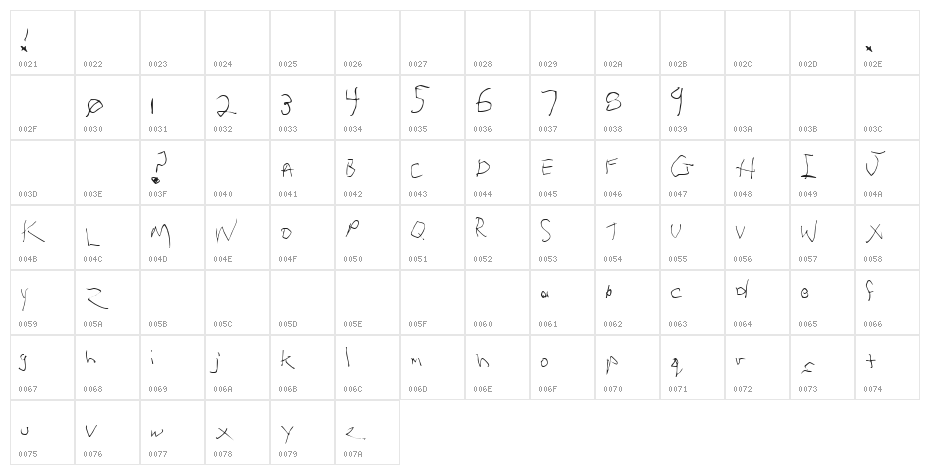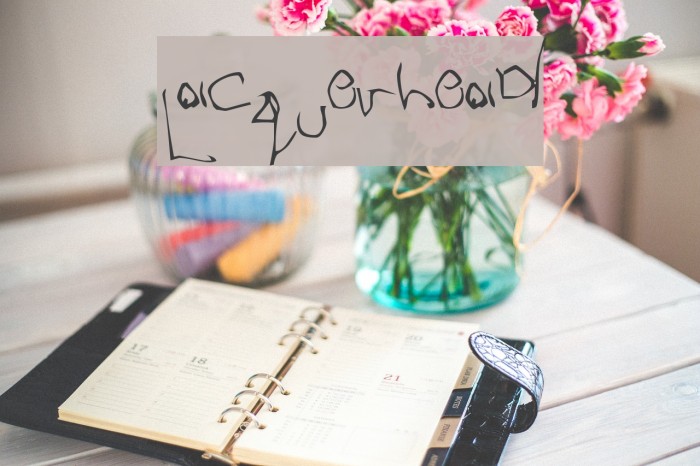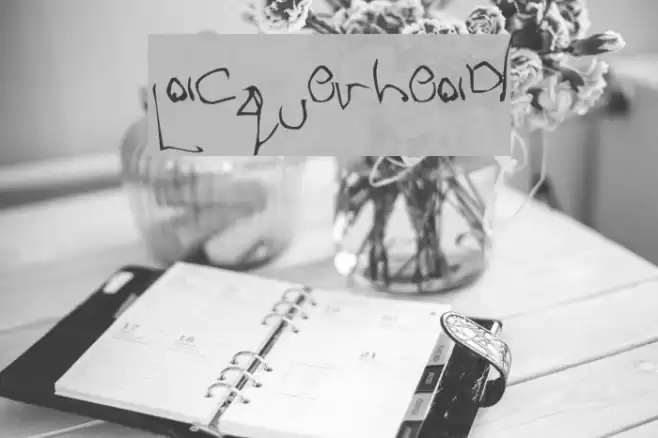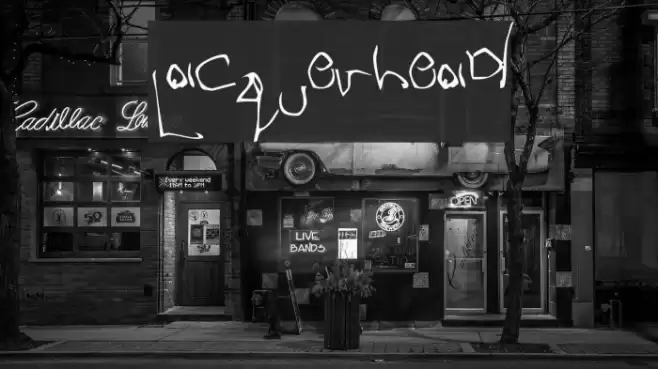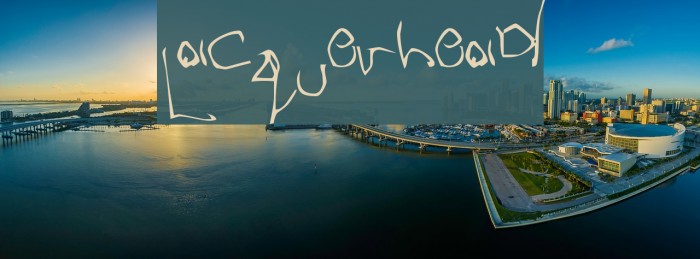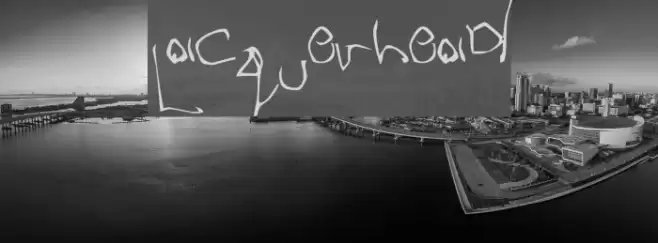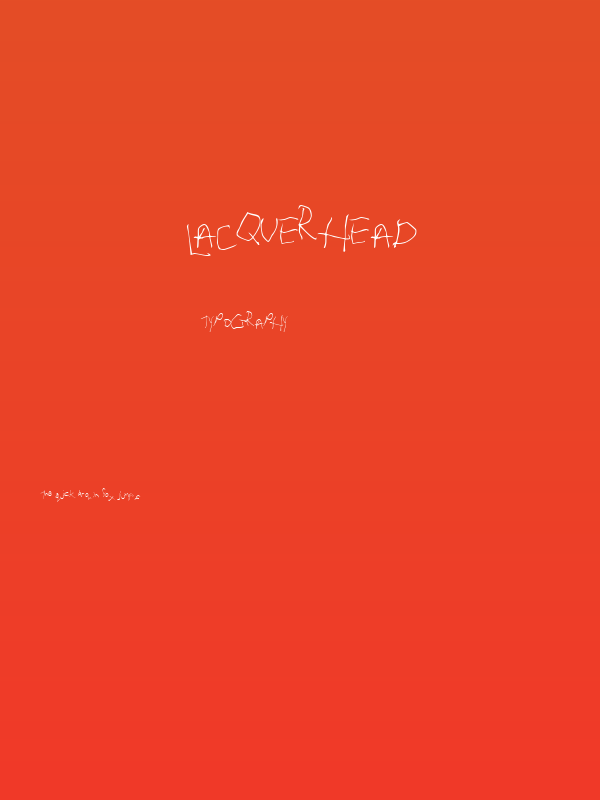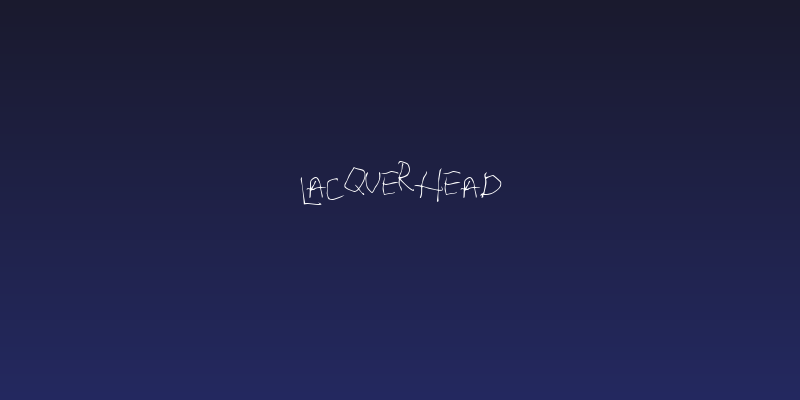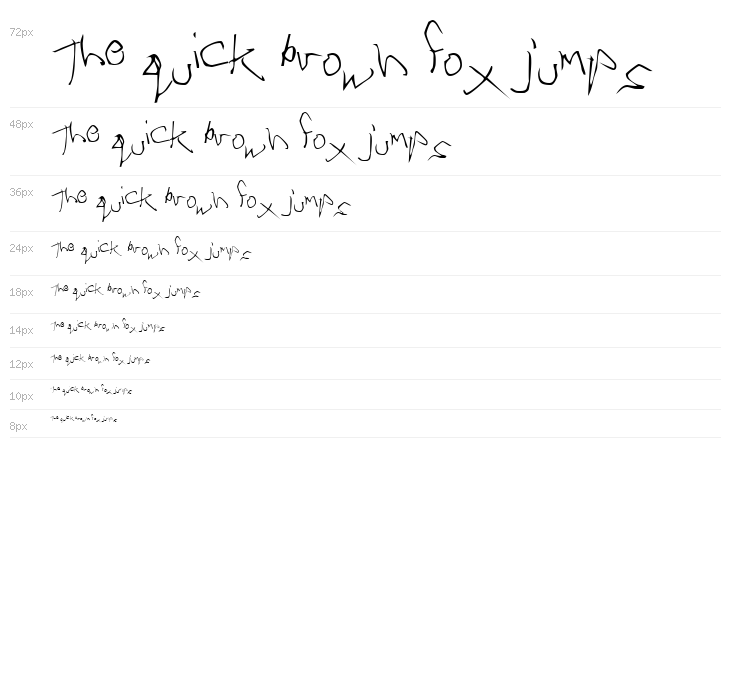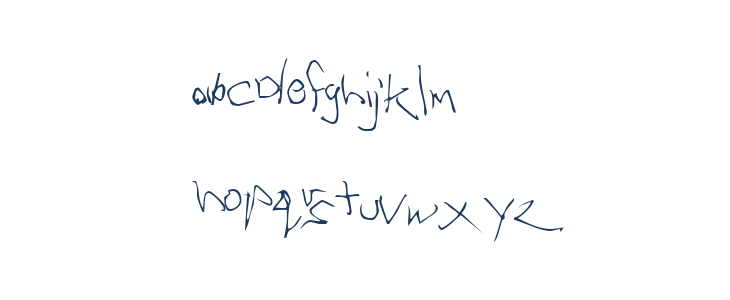
Lacquerhead Font
Lacquerhead Description
This font features a highly expressive and dynamic handwritten style, characterized by its irregular and spontaneous strokes. The letters vary in size and angle, creating a sense of movement and energy. The uppercase and lowercase characters maintain a consistent flow, while the numbers and special characters exhibit the same lively and unpredictable nature. The overall appearance is raw and artistic, making it suitable for creative and unconventional design projects.
| Use Case | Logos, Posters, Artistic designs |
| Proposed Projects | Ideal for artistic projects, album covers, posters, and any design requiring a bold, creative touch. |